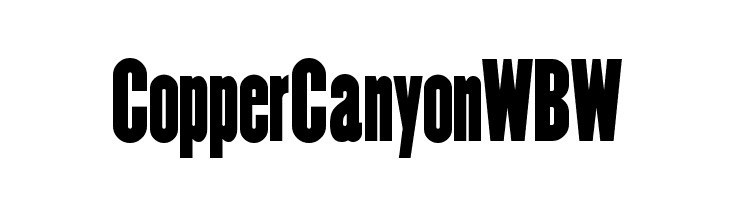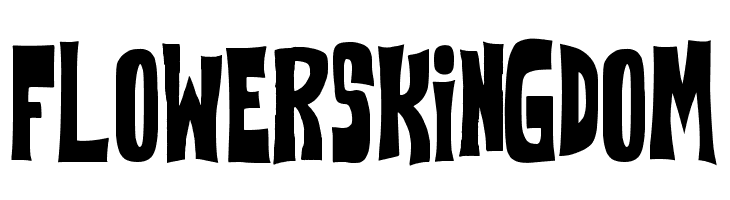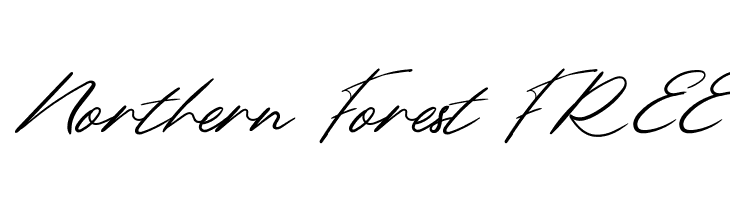
A dynamic and elegant script font with a modern, handwritten style.
A thin, geometric font with a modern and minimalist design.
A bold, futuristic font with sharp, angular edges and a geometric design.
A bold, condensed font with high contrast and a modern style.
A playful, casual handwritten font with rounded, uniform strokes.
Playful handwritten font with an artistic touch.
A whimsical, playful script font with a handwritten style.
A bold, outlined, italic font with a modern and dynamic style.
A playful, handwritten font with a casual and friendly style.
A bold, playful font with rounded edges and a hand-drawn feel.